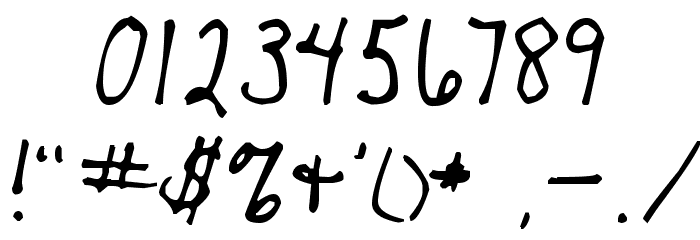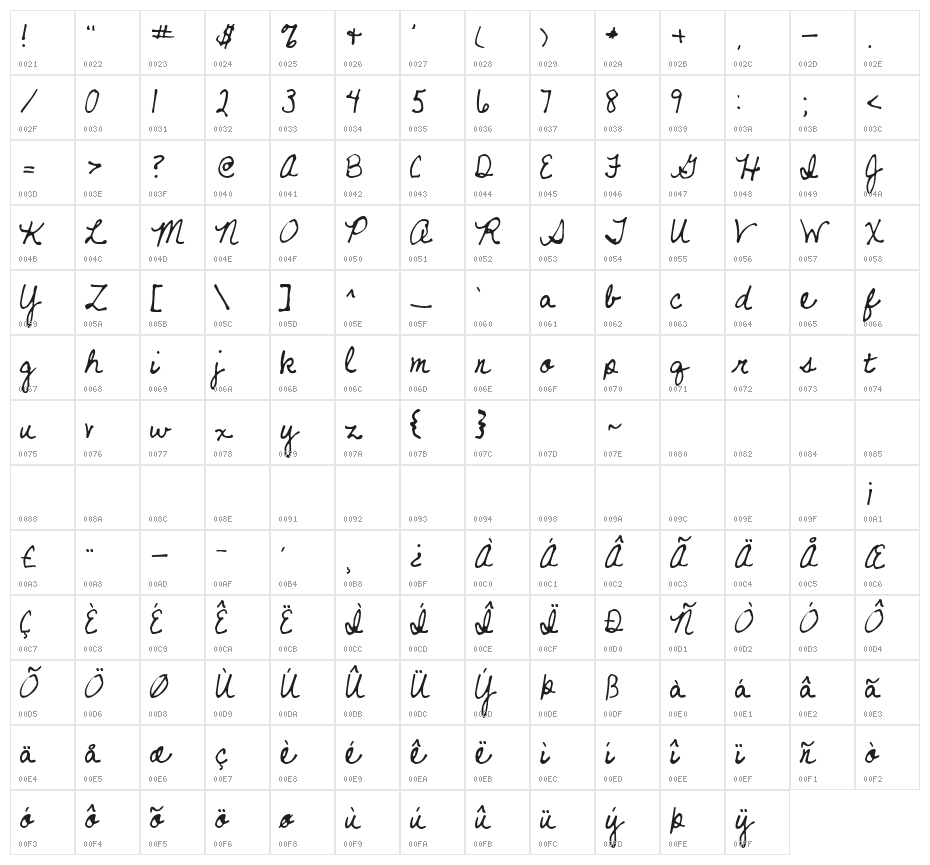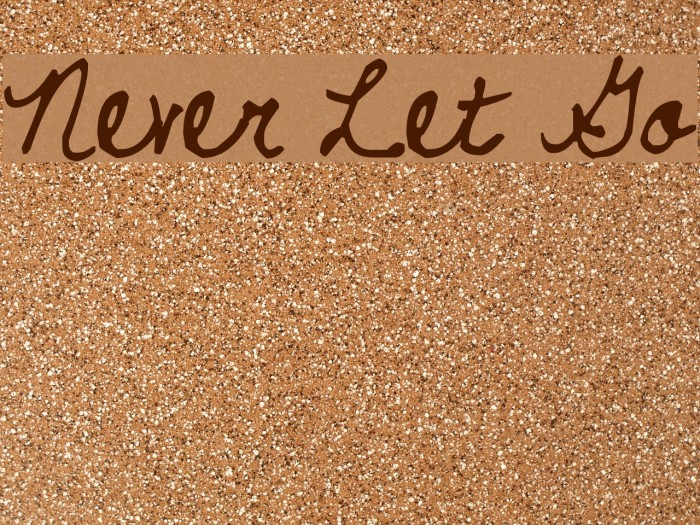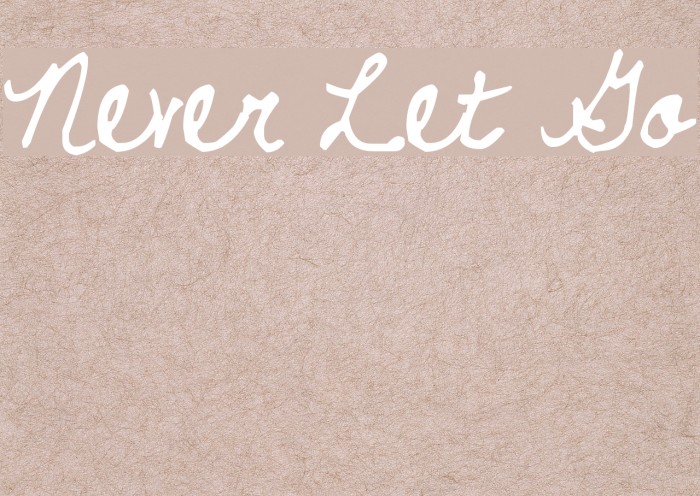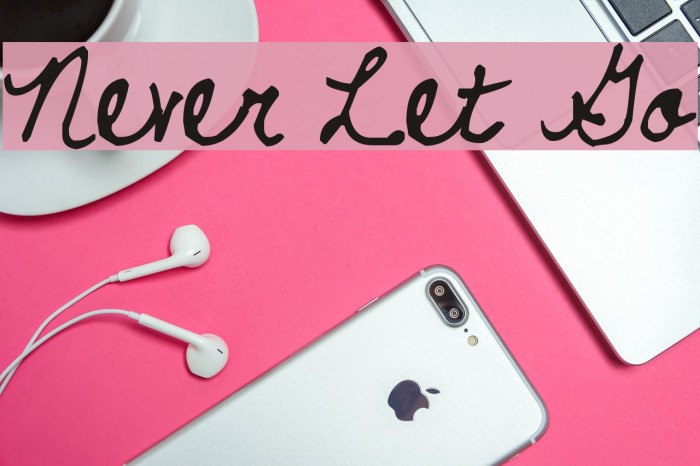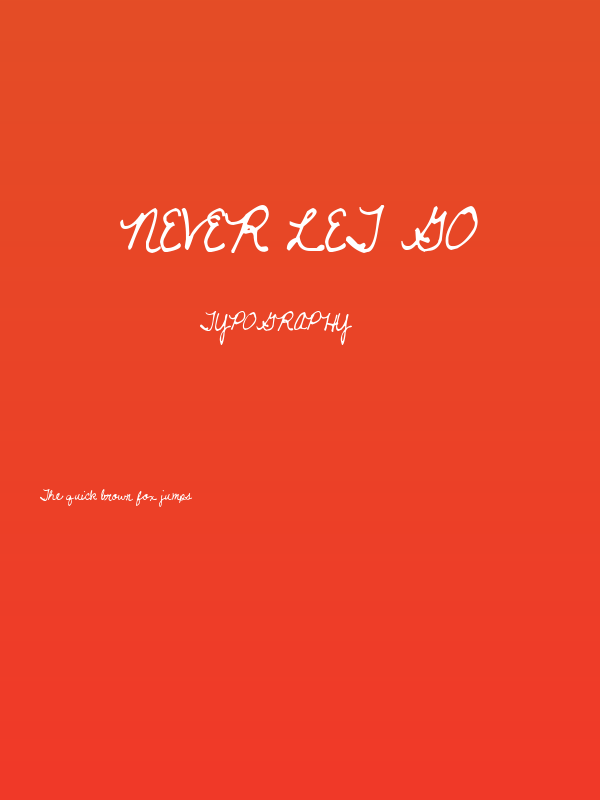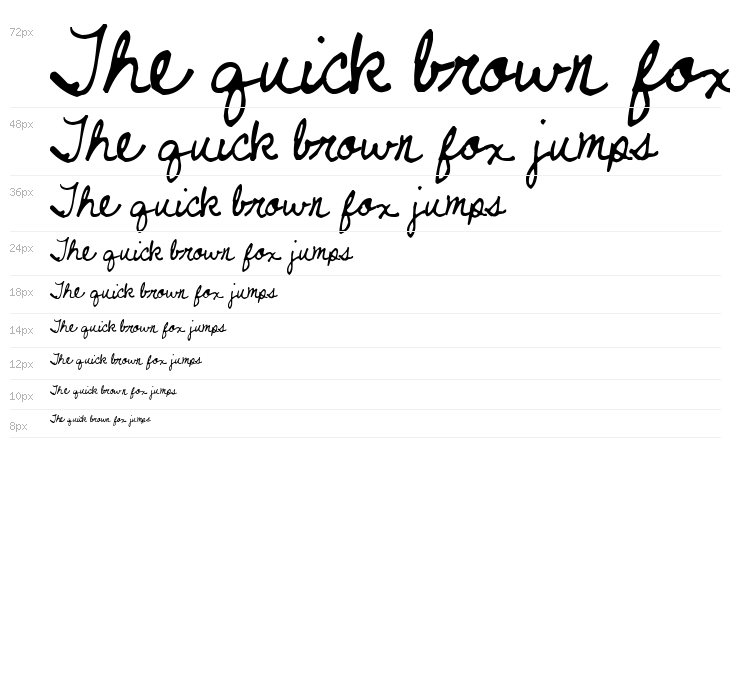
Never Let Go Font
Never Let Go Description
This font exhibits a lively and fluid handwritten style, characterized by its cursive and connected letterforms. The uppercase letters maintain a consistent height, while the lowercase letters feature a playful and slightly irregular baseline, adding to its casual charm. The numerals are clear and legible, matching the overall handwritten aesthetic. Special characters are integrated seamlessly, maintaining the font's cohesive appearance. The strokes are moderately thick, providing a balanced contrast that enhances readability without sacrificing the font's artistic flair.
| Overall Style | Casual, Artistic |
| Proposed Projects | Ideal for personal invitations, greeting cards, artistic projects, and branding that requires a personal touch. |